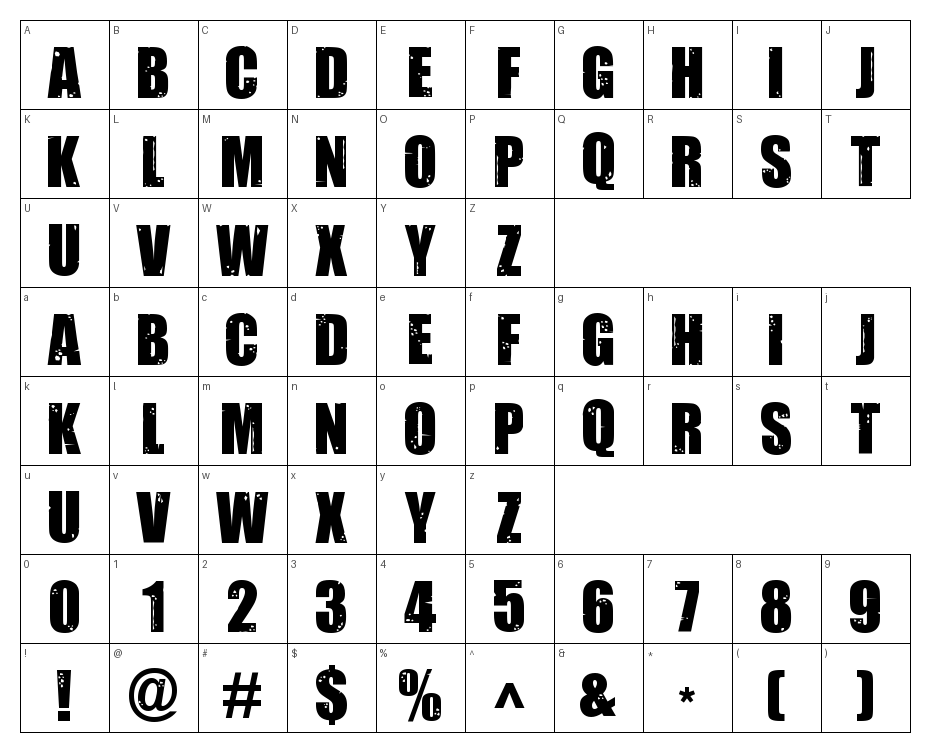
Designer Note
Thanks to all who have downloaded Impacted - even more thanks if you've donated! I've seen it in use all over the world! Impacted2.0 is improved,with a second upper case character set with different defects in the lower case space. Enjoy... and if you're using the font commercially, please donate. (I'm looking at you, Channel 10 Brisbane!)
Font Name: Impacted